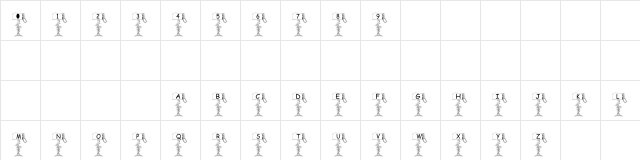
pf_mailbox Regular
Design Context for pf_mailbox Typeface
pf_mailbox is a composed and adaptable typeface that performs quietly and consistently across a wide range of design contexts.